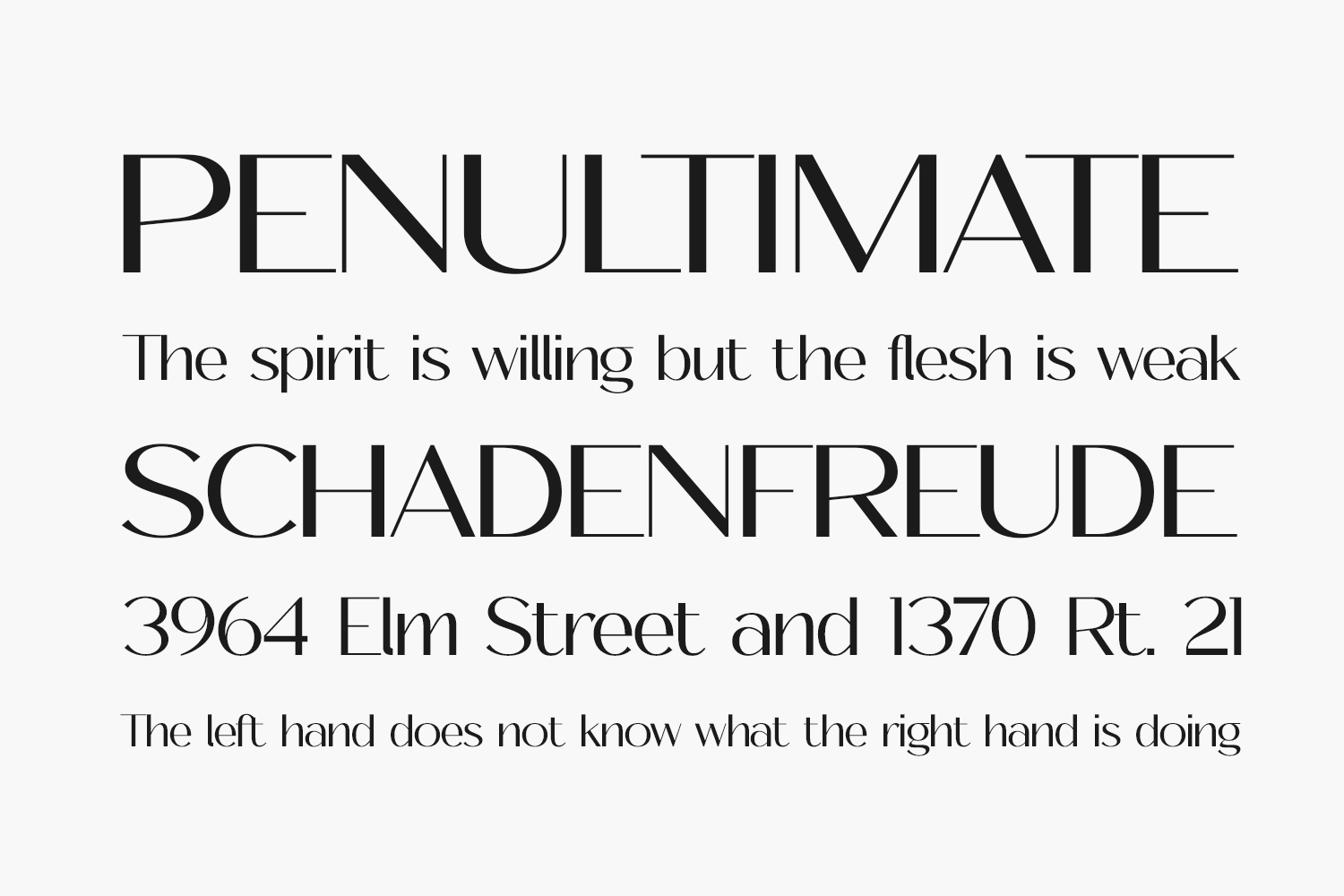
Introducing Qasbyne Free Font, a contemporary and timeless sans-serif typeface that exudes a distinctive style and a touch of elegance. This font is ideal for creating sophisticated and luxurious logos, captivating book or movie titles, fashion brands, magazines, apparel, lettering, quotes, and a myriad of other design projects where a fancy look is desired. Elevate your creations with the unique charm of Qasbyne. Qasbyne Free Font was designed by Storytype Studio and is free for personal use only. Please purchase the full version for commercial use.